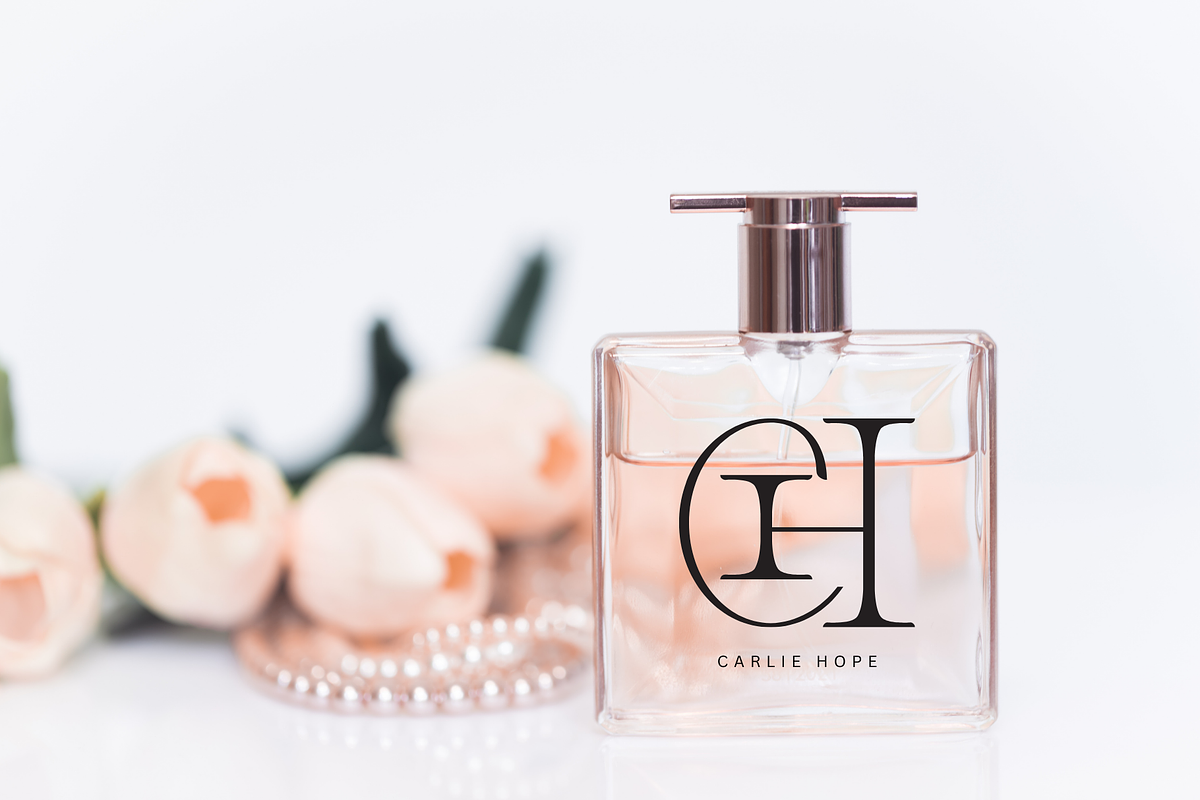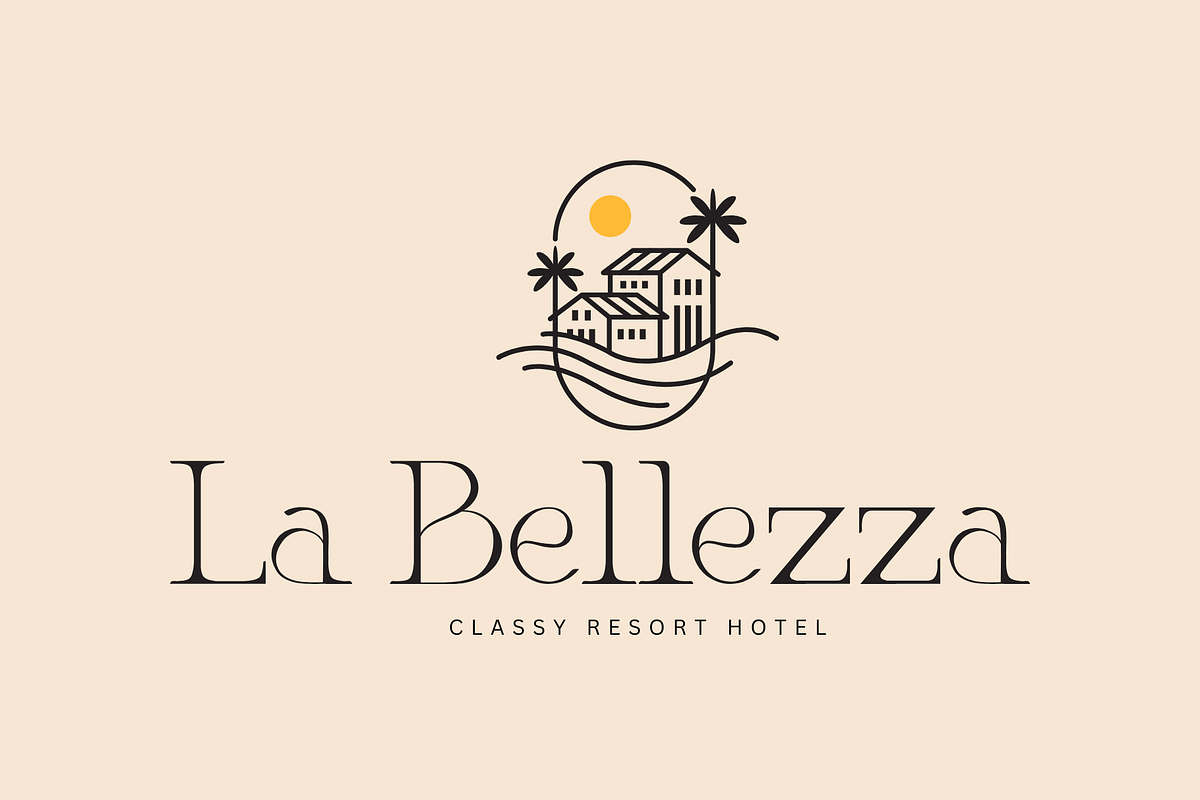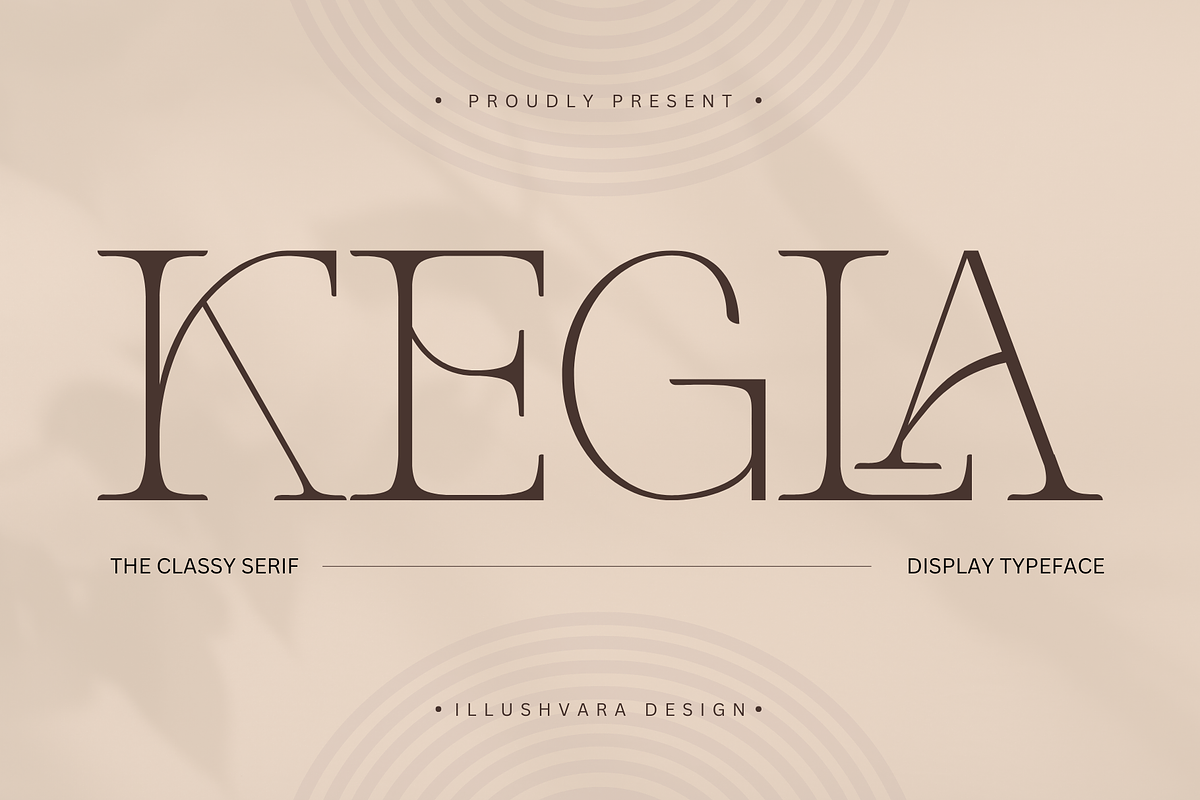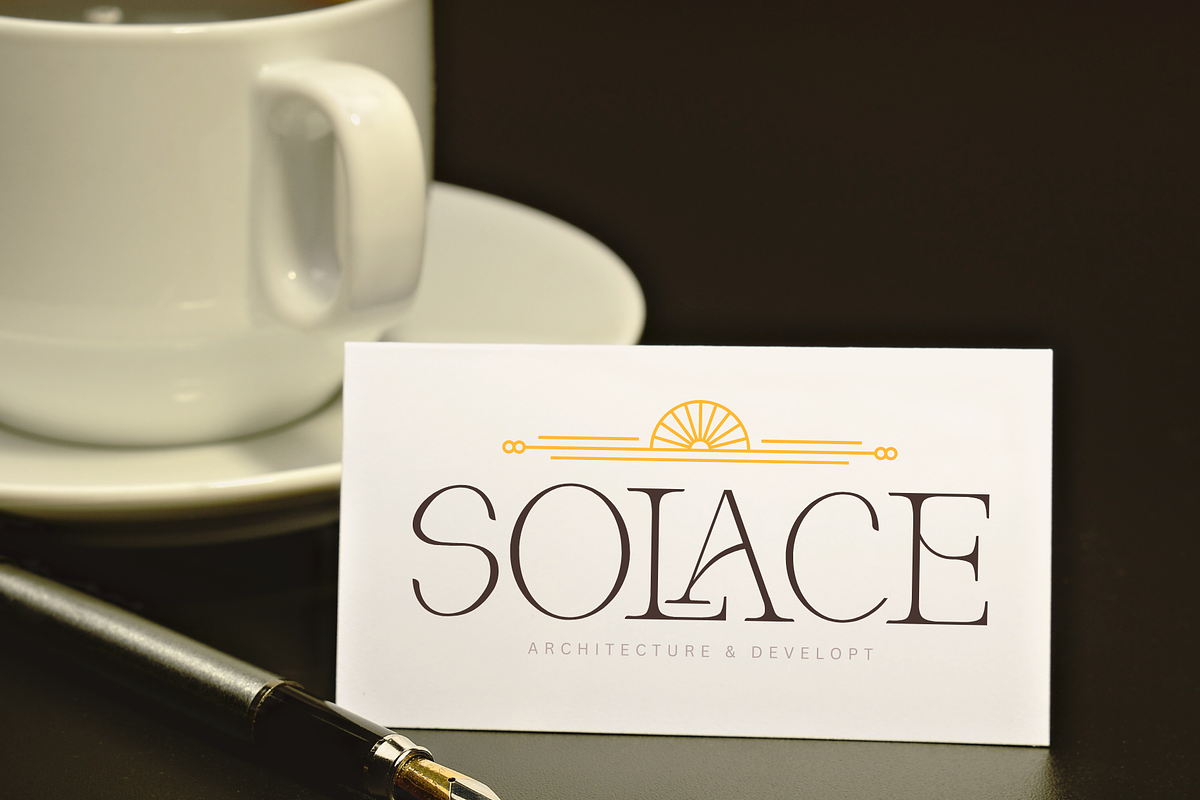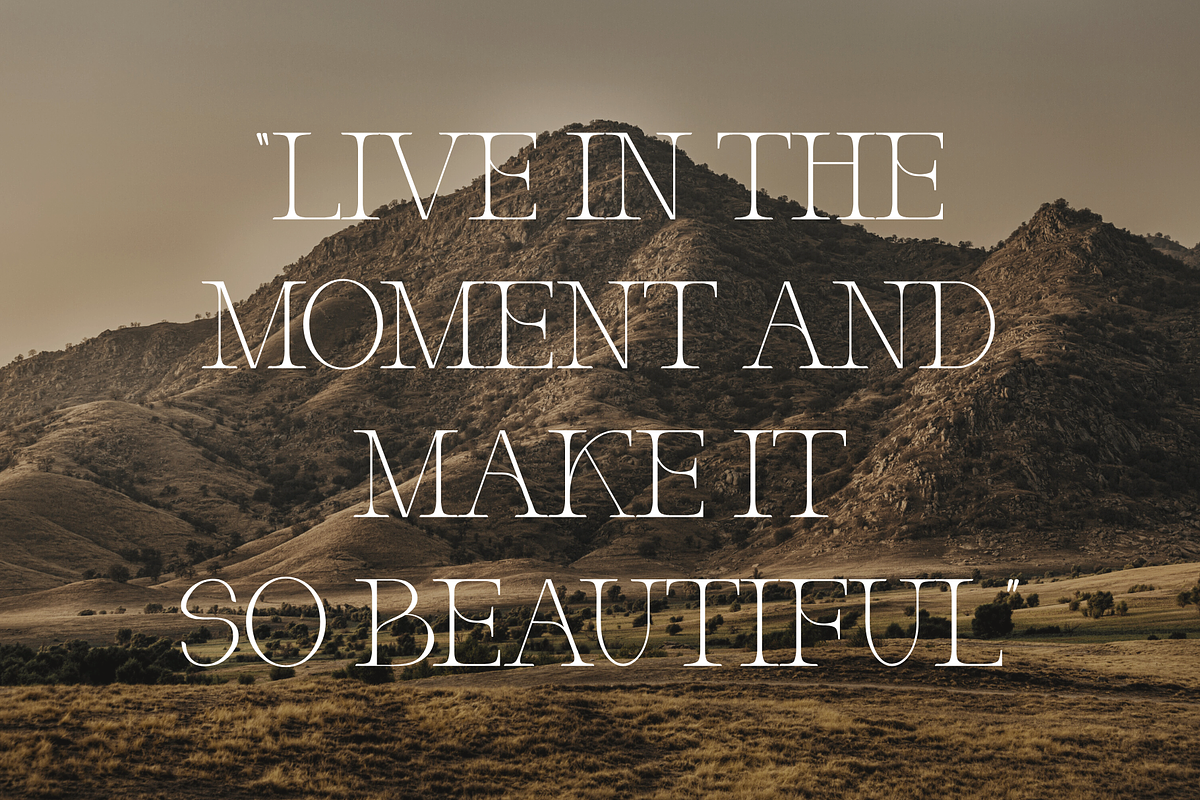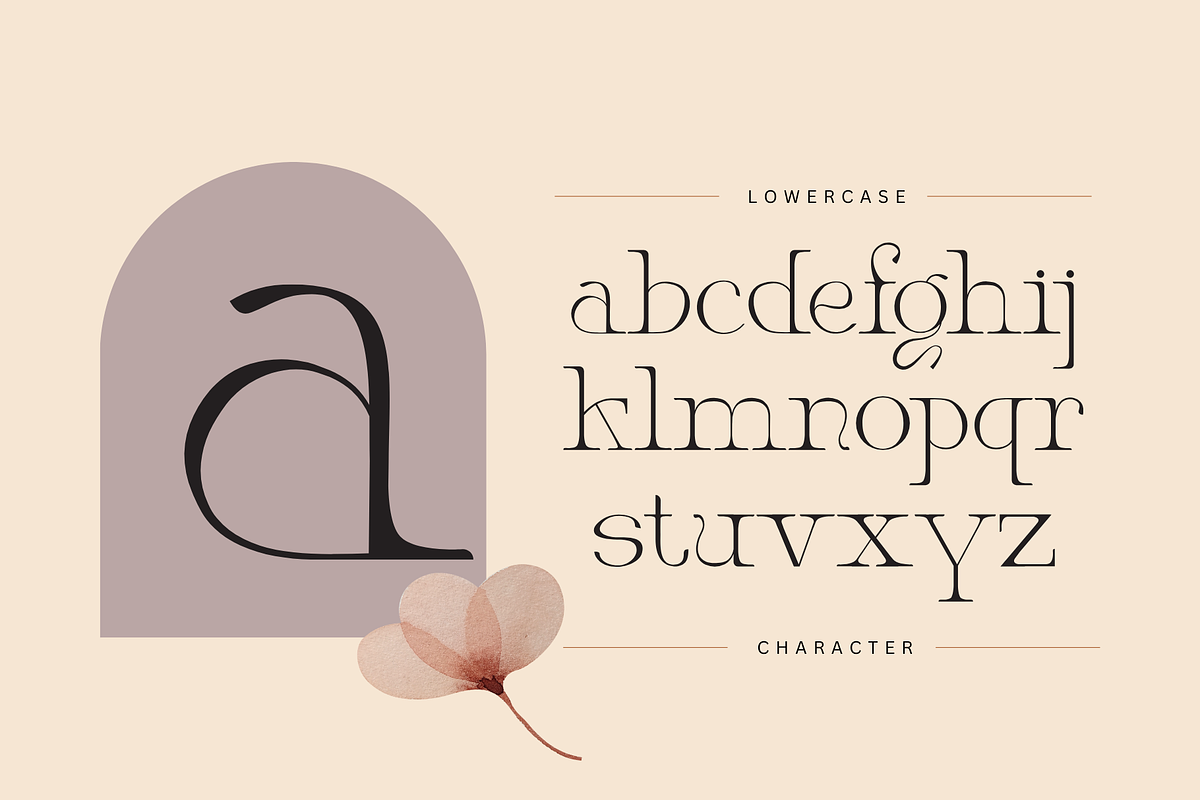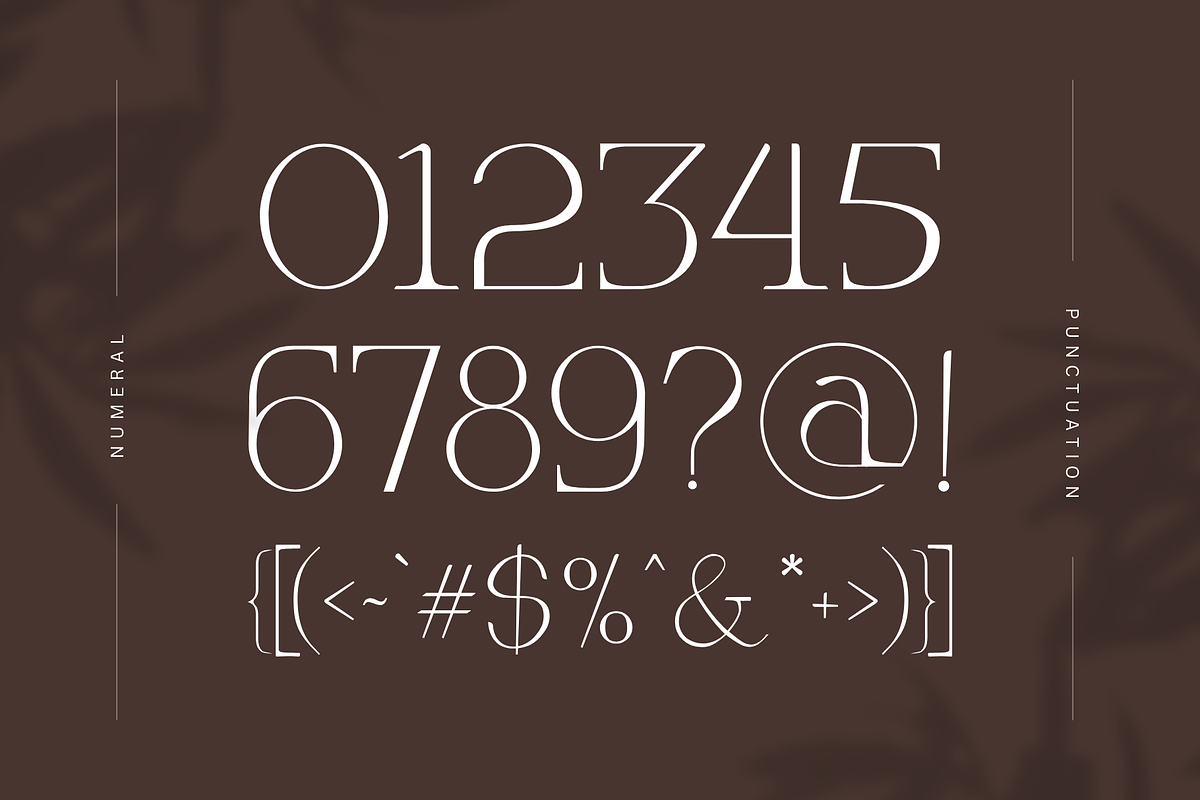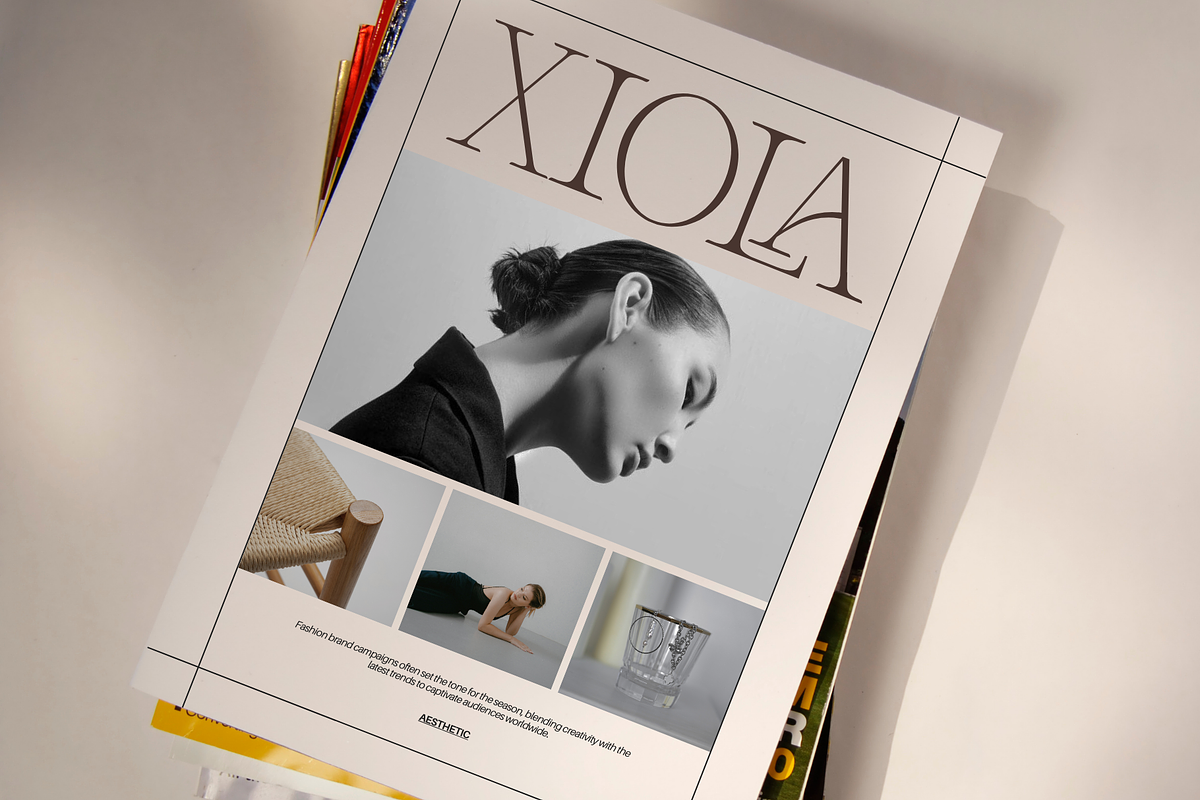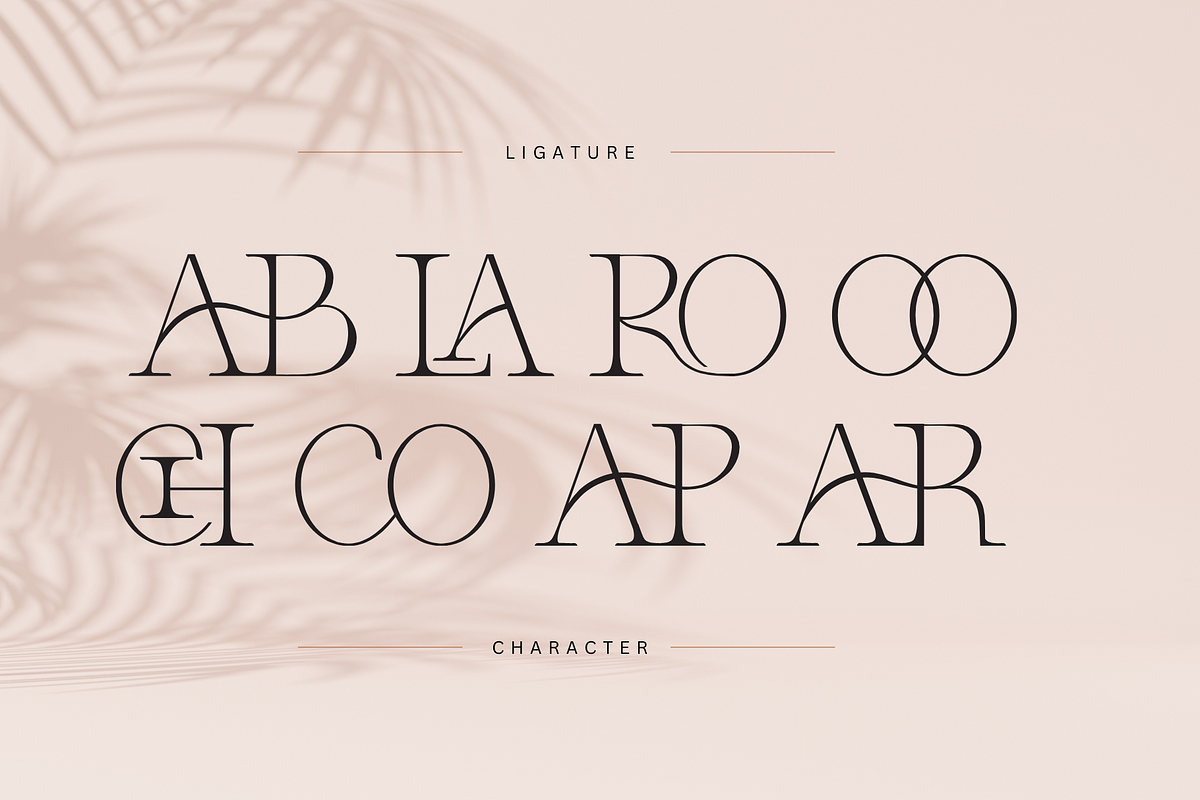
Kegla - Classy Serif Logo Font
Say hello to Kegla – Classy Serif Logo Font
Kegla is a sophisticated serif display font that exudes elegance and refinement. Designed with luxurious curves and striking contrasts, it features graceful ligatures that enhance its fluidity and charm. Perfect for high-end branding, editorial designs, and stylish invitations, Kegla blends timeless beauty with modern flair. Its meticulously crafted letterforms and distinctive details make it a standout choice for designers seeking a classy, sophisticated typeface with character and grace.